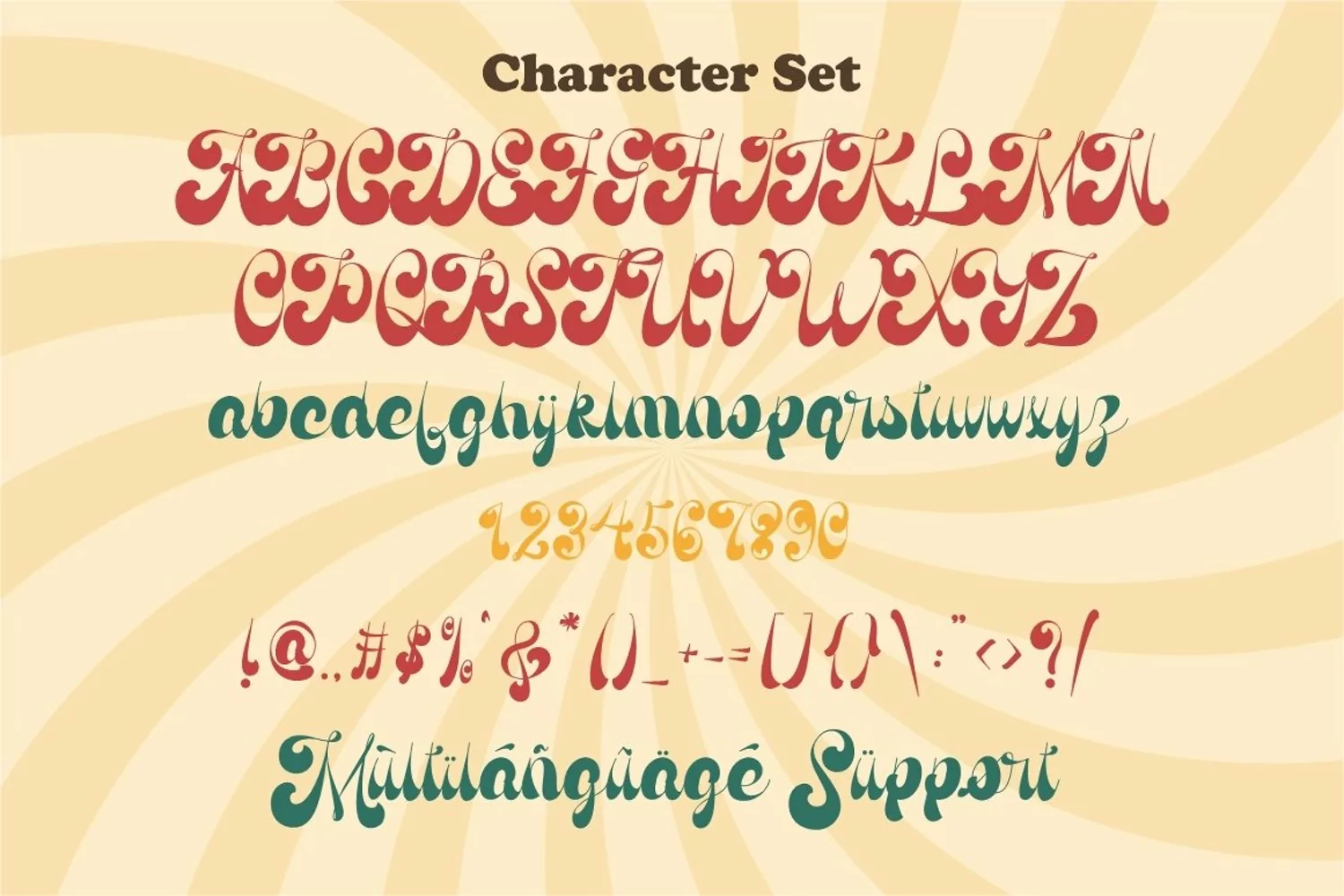
Antique Vignette - Vintage Script Font
Antique Vignette is a quirky vintage script font. I call this font quirky font because the concept of this font uses a very visible difference in the thickness of the font. Because of its thickness, it makes this font look more unique and has a more vintage feel. The perfect combination of vintage/groovy style with classic lettering. So this font is suitable for your projects with vintage/retro/groovy themes. In addition, this font is also suitable for logos, branding, lettering, badges / emblems, quotes, posters, svg, book titles, packaging, t-shirts / apparel and others.
Come with Opentype feature with a lot of alternates, its help you to make great lettering. This font is also support multi language.
Comes with feature :
- Opentype (Alternates And Ligatures)
- Number, Punctuation And Symbols
- Multilanguage Support.